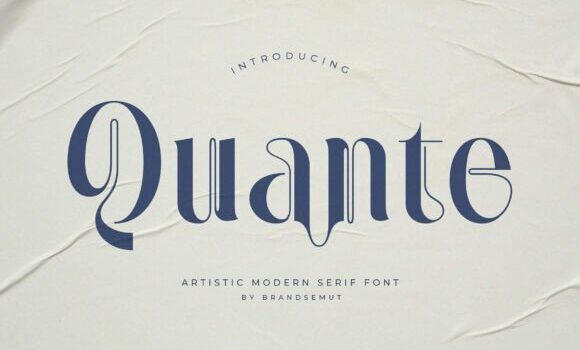
quante
Quante Font – Free Download Introduction to Quante Font Quante is a refined and artistic modern display serif typeface that masterfully balances classical elegance with contemporary experimentation. 📸 Preview Gallery 6 images 📌 Product Name Quante Font 👤 Author BrandSemut